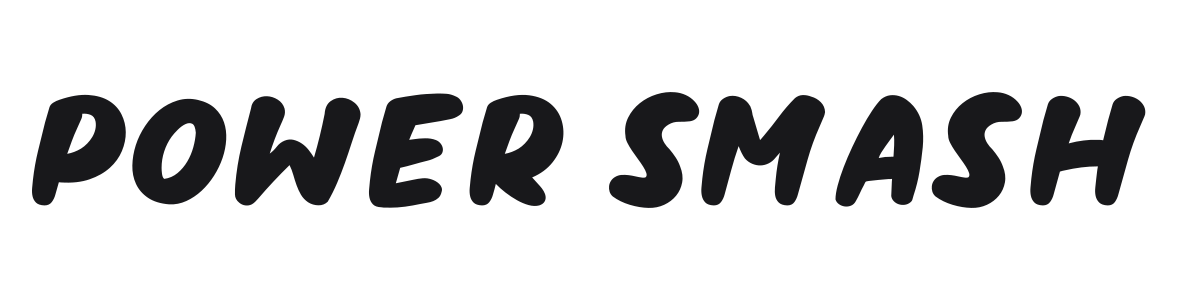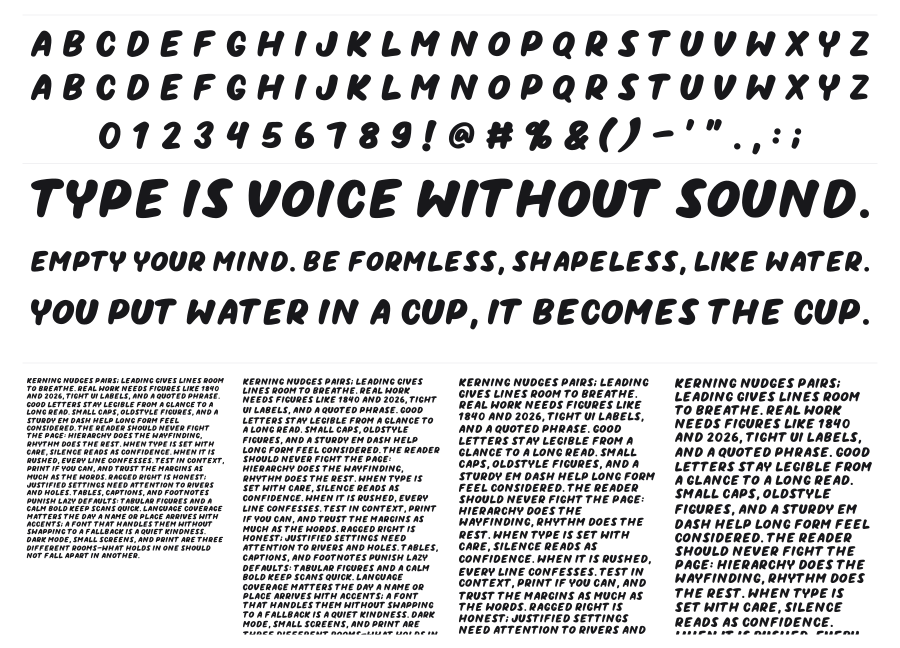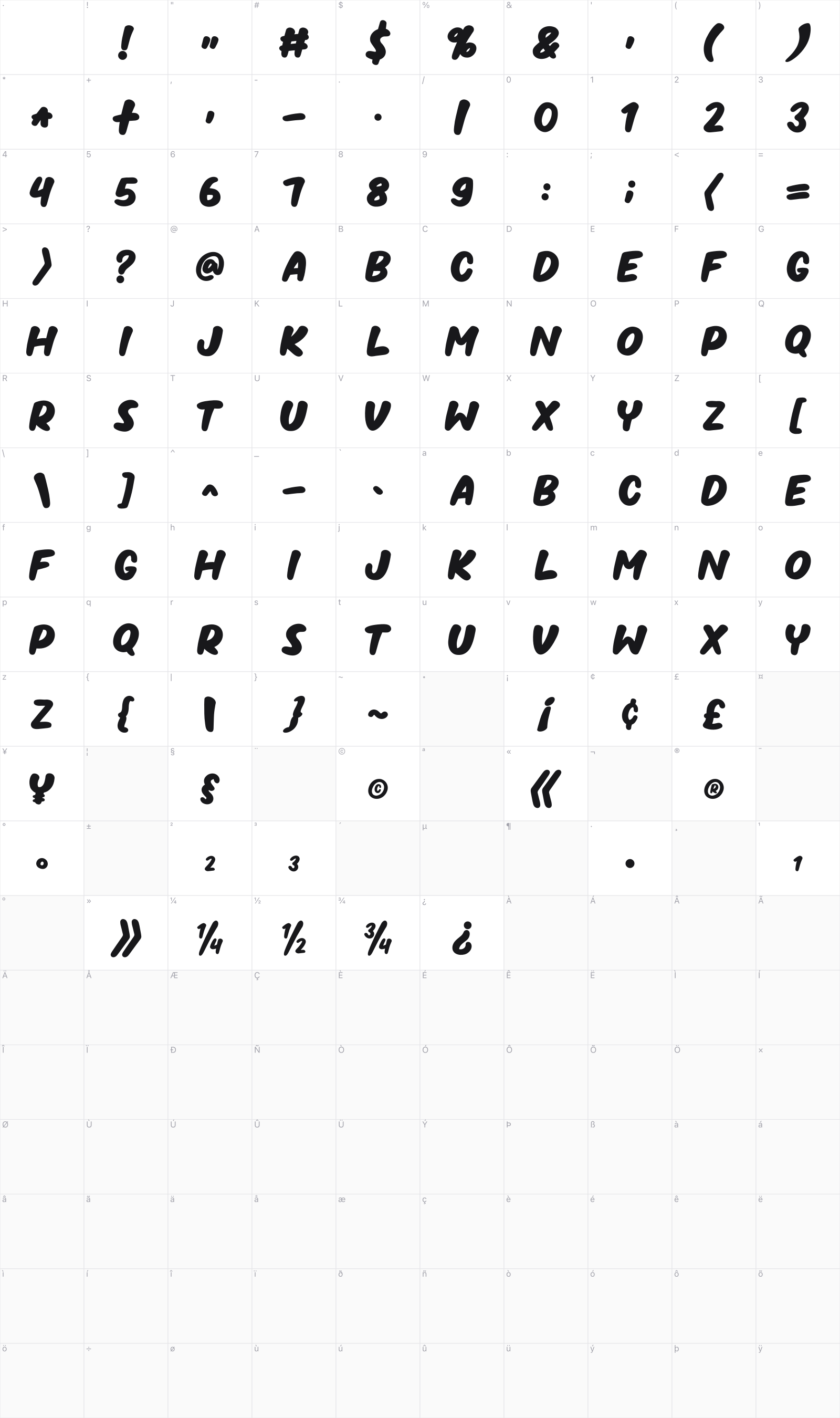
Power Smash
Power Smash is a heavy oblique comic-book display font with thick rounded strokes and a forward-charging slant. Its chunky, hand-lettered quality calls back to classic action comic title lettering. Strong at large sizes for sports branding, gaming titles, and youth-market packaging.